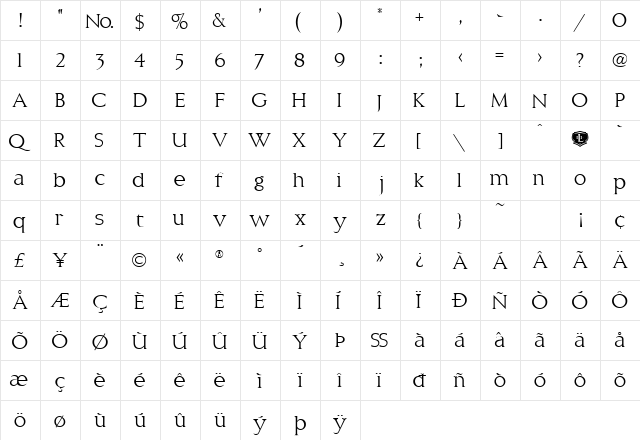
LHF Classic Roman Regular
Regular · Letterhead Fonts John Studden ·
DesignerJohn Studden
Design Context for LHF Classic Roman Typeface
LHF Classic Roman has the warm character of retro typography — evoking diners, record sleeves, and the golden age of print advertising.
Perfect for vintage-inspired branding, retro packaging, nostalgia campaigns, and period-accurate editorial design.
Font Pairing: Combine LHF Classic Roman with a simple slab or neutral sans — period-accurate companions reinforce the vintage feel without competing for attention.
Pro Tip: Use LHF Classic Roman for headlines and pull quotes rather than body copy — its personality is best appreciated in short, focused bursts.